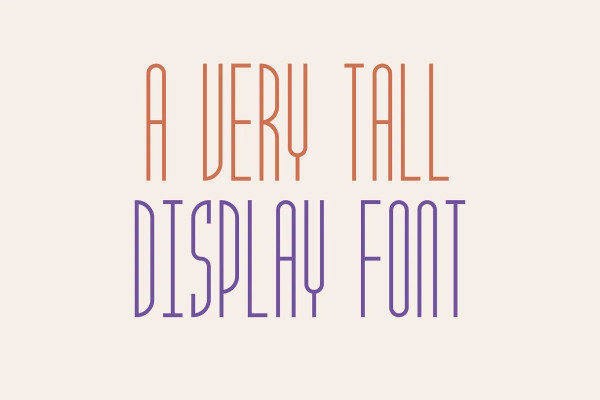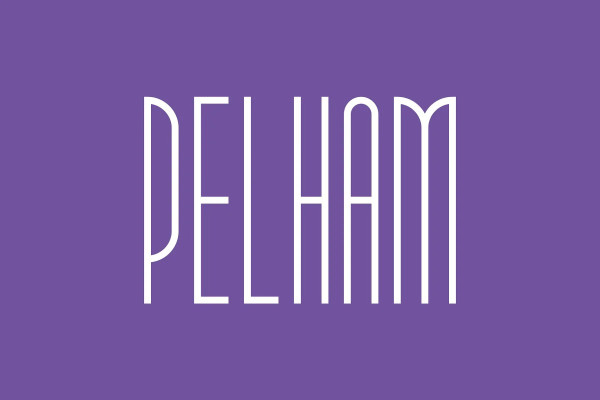
Pelham Font
Pelham Font is a thin and tall display font with consistent widths and rounded corners. Its consistent grid-based letters look great in both small and large sizes. This font is a great fit for minimal designs.